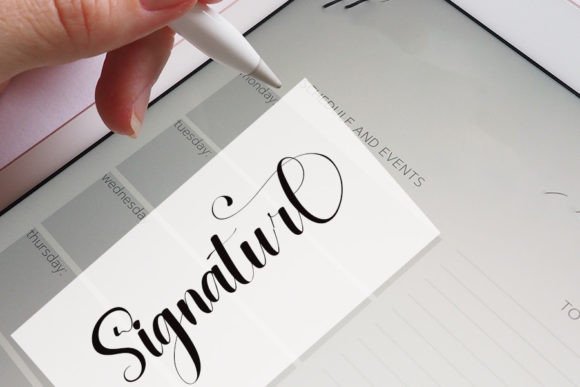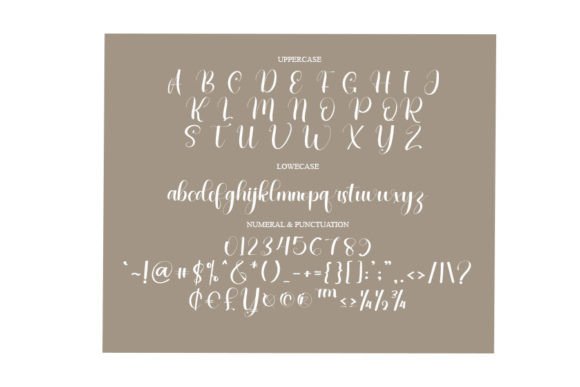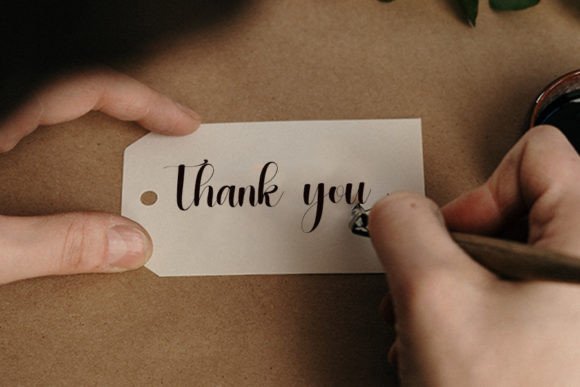
Introducing California Font: Elevate Your Designs with Timeless Elegance
In the world of typography, fonts play a crucial role in conveying the tone and aesthetic of a design. For those seeking a stylish and contemporary look, California Font is an exceptional choice. This beautiful handwritten font is inspired by timeless classic calligraphy, offering a perfect blend of balance, variety, and elegance. In this article, we’ll explore the features and benefits of California Font, and how it can enhance the beauty of your projects.
The Inspiration Behind California Font
California Font draws inspiration from traditional calligraphy, with a modern twist. The creator aimed to capture the essence of classic calligraphy, while infusing it with a contemporary atmosphere. The result is a stylish and versatile font that suits a wide range of design applications. Whether you’re working on a branding project, wedding invitation, or social media graphics, California Font is sure to impress.
Key Features of California Font
- Handwritten with a personal touch: California Font boasts a beautiful, handwritten appearance that adds a personal touch to your designs.
- Contemporary atmosphere: The font’s modern vibe makes it perfect for designs that require a fresh and stylish look.
- Impeccable form: The creator has paid close attention to detail, ensuring that each letterform is meticulously crafted for optimal readability and aesthetics.
- Balanced and varied: California Font offers a range of characters, ensuring that your text remains engaging and visually appealing.
Benefits of Using California Font
- Elevate your brand’s image: With California Font, you can add a touch of sophistication and elegance to your brand’s visual identity.
- Stand out from the crowd: This unique font will help your design stand out in a crowded market, making it perfect for businesses, artists, and crafters.
- Versatile and adaptable: California Font can be used across various design applications, from digital media to print materials.
- Easy to read and understand: The font’s clear and legible design ensures that your message is conveyed effectively.
- Graphic designers: Add a touch of elegance to your branding, advertising, and marketing materials.
- Stationery and journal creators: Enhance your stationery, journals, and planners with a beautiful, handwritten font.
- Wedding planners and event designers: Use California Font to create stunning wedding invitations, programs, and event materials.
- Social media influencers and bloggers: Elevate your social media graphics and blog posts with a stylish and contemporary font.
California Font is a stunning handwritten font that offers a perfect blend of style, elegance, and versatility. Inspired by timeless classic calligraphy, this font is sure to elevate the beauty of your projects. With its impeccable form, balanced and varied characters, and contemporary atmosphere, California Font is an excellent choice for designers and crafters seeking to add a touch of sophistication to their work.